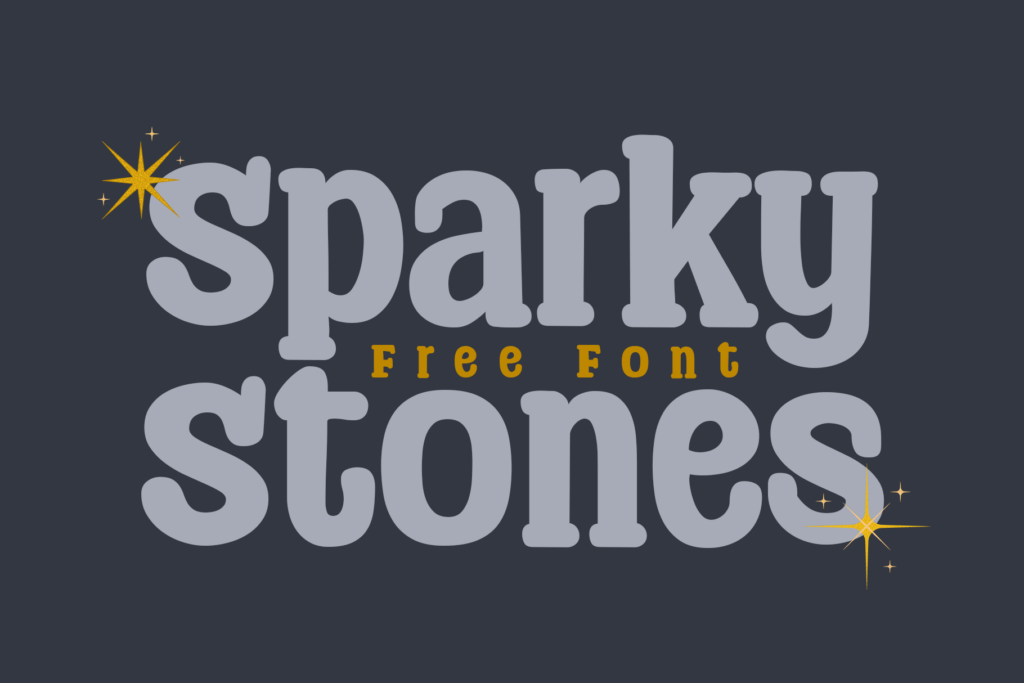
Sparky Stones Display Font is charming, bold, fun handwritten font. Whether you use it for cartoon-related designs, children’s games, or just any creation that requires a lovely touch, this font will be an amazing choice.